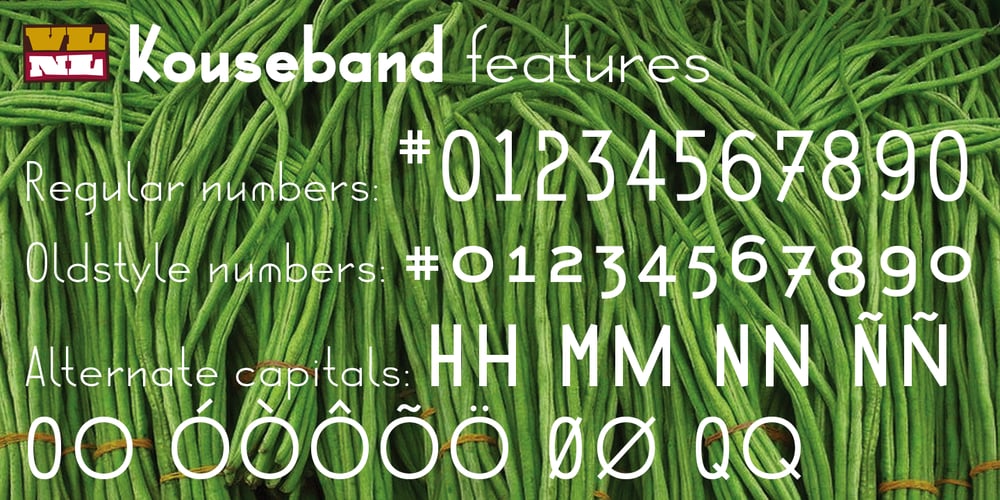
VLNL Kouseband Font Family was designed by Donald Beekman and published by VetteLetters. VLNL Kouseband contains 5 styles and family package options. The starting point for VLNL Kouseband was spotted by Donald DBXL Beekman on the Christian Reformed Church in the Dutch town of Naarden. The iron wire lettering contained a number of unusual characters and details, which eventually led to this five weight family. The Kouseband fonts mix elements of geometric sans serifs and upright unconnected scripts, with a hint of Dutch school writing. VLNL Kouseband is monolinear and has an very large cap height compared to the (lowercase) x-height, giving the capital letters an elongated condensed appearance. Kouseband is the Dutch word for ‘garter (belt)’ and also gave the name to a long tropical bean known as Yardlong bean. Kouseband beans are a common ingredient in Roti and other Surinamese dishes. As the Dutch Christian church is sometimes referred to as ‘Zwarte kousenkerk’ (Black stocking church), and stockings are held up by garter belts, we have come full circle and VLNL Kouseband has a name. VLNL Kouseband contains a set of oldstyle numbers matching the lowercase letters, and a couple of wider alternate capitals (HMNOQ) to enhance the liveliness of your designs.